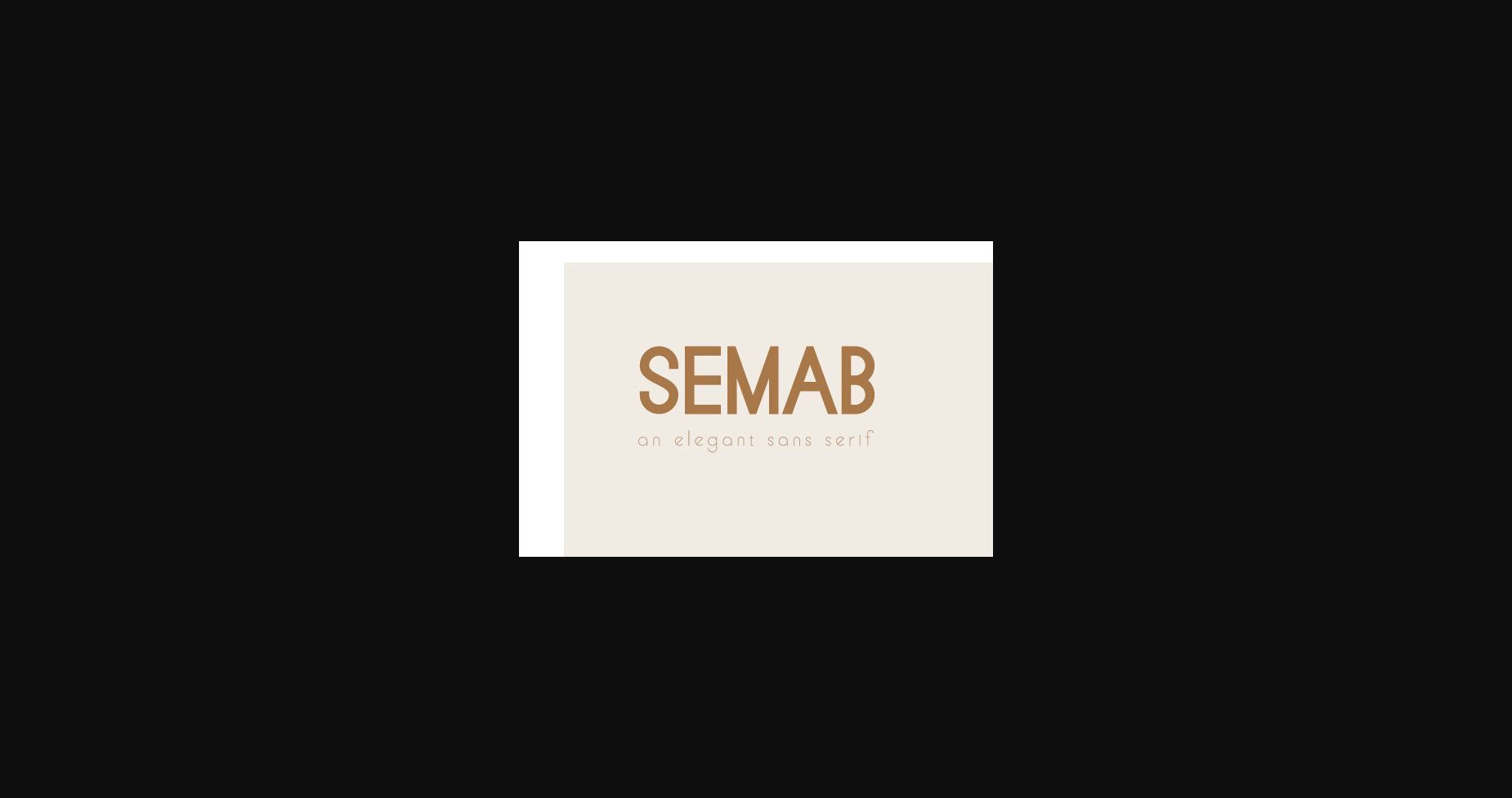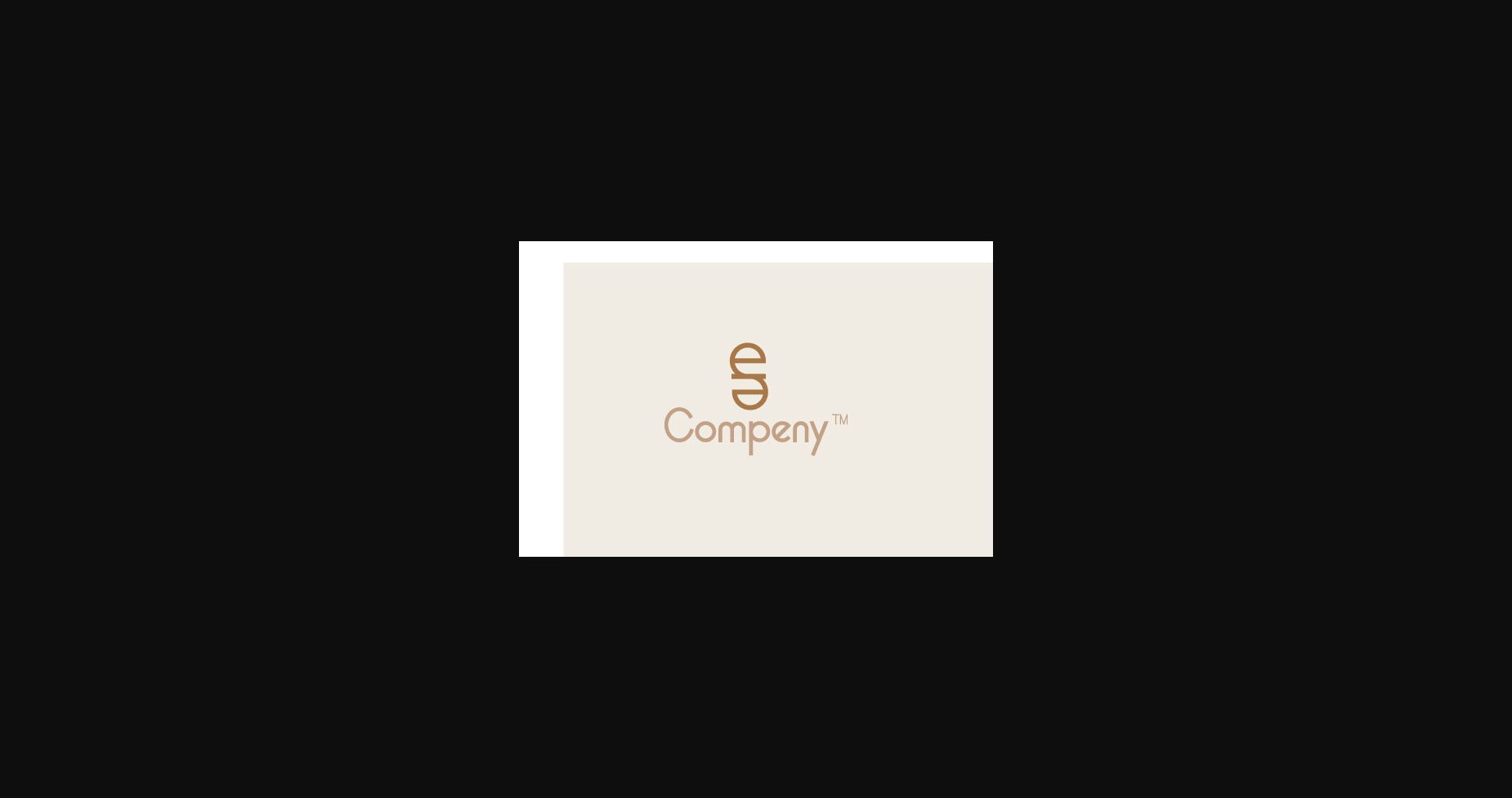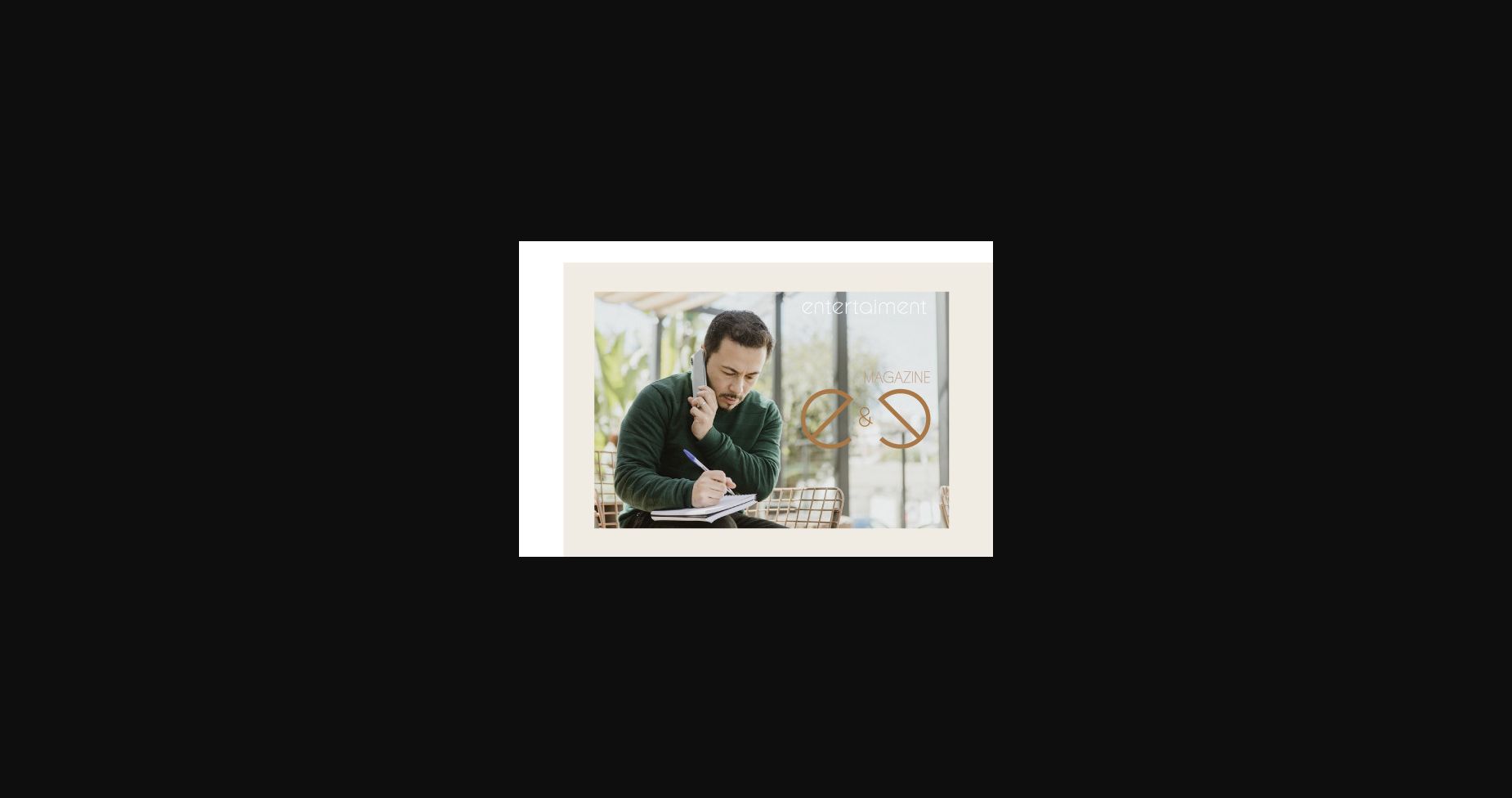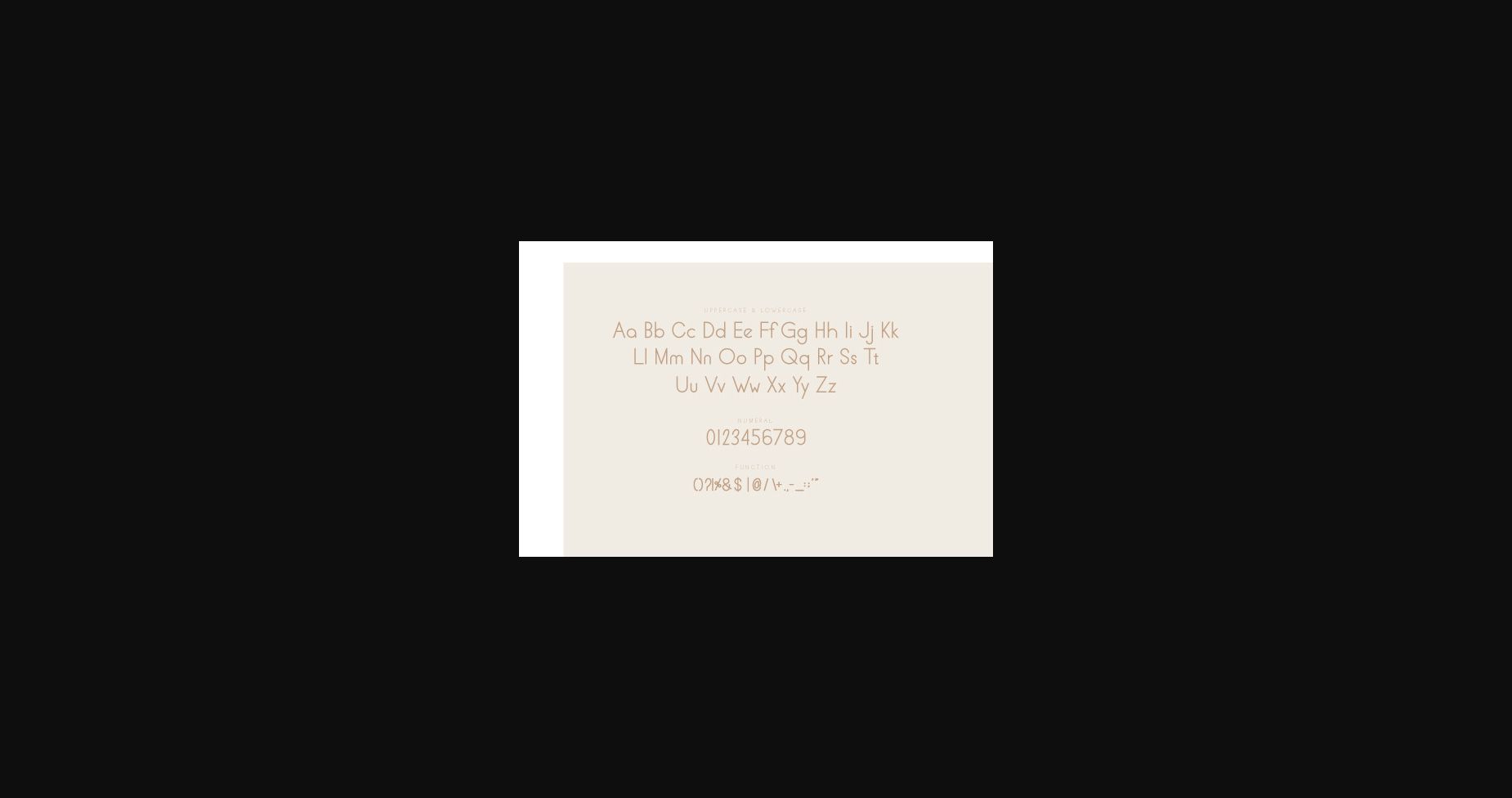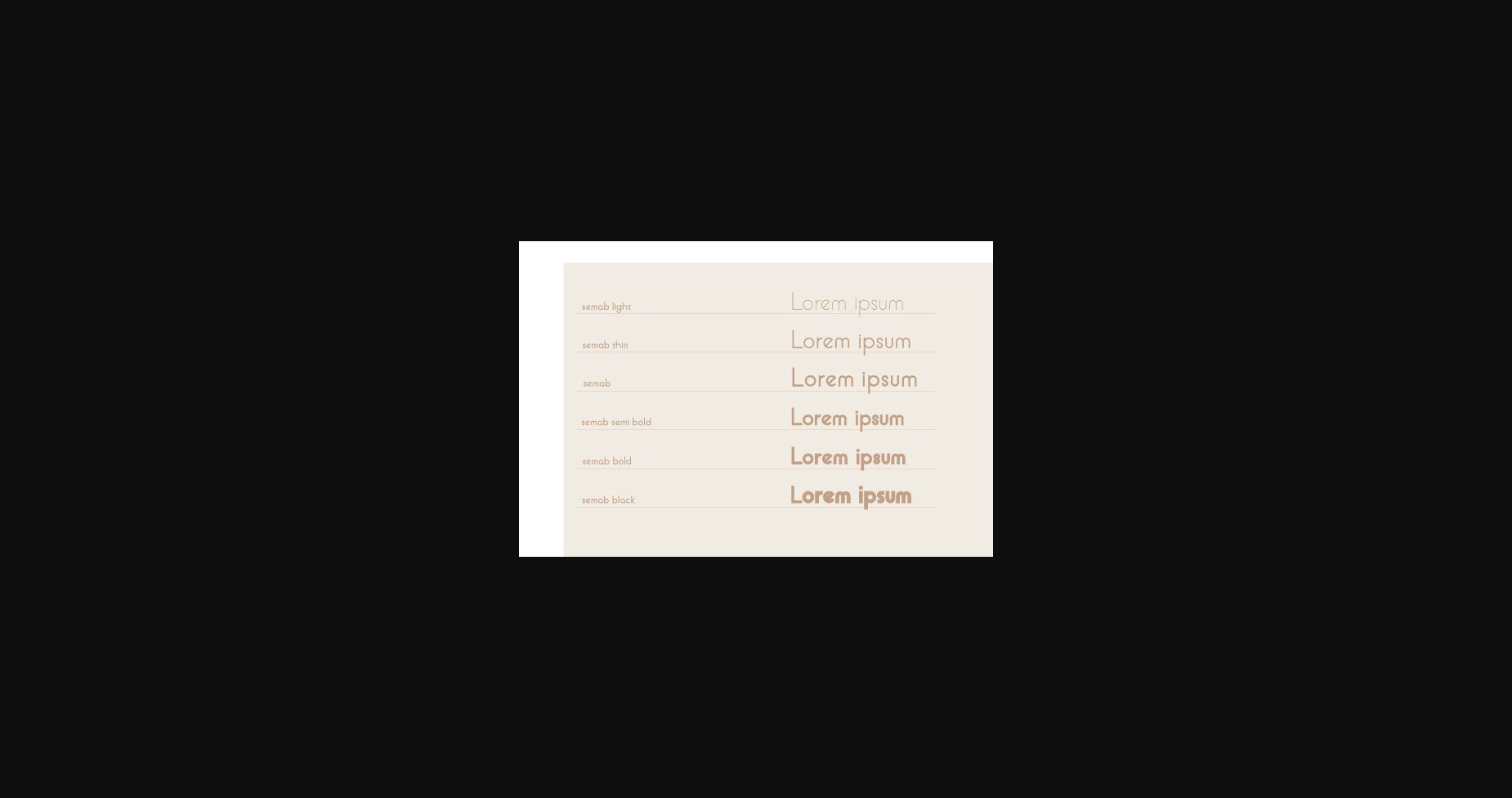
About Semab Font
Semab is a minimal and neat sans serif font. It can easily be matched to an incredibly large set of projects, so add it to your creative ideas and notice how it makes them stand out!